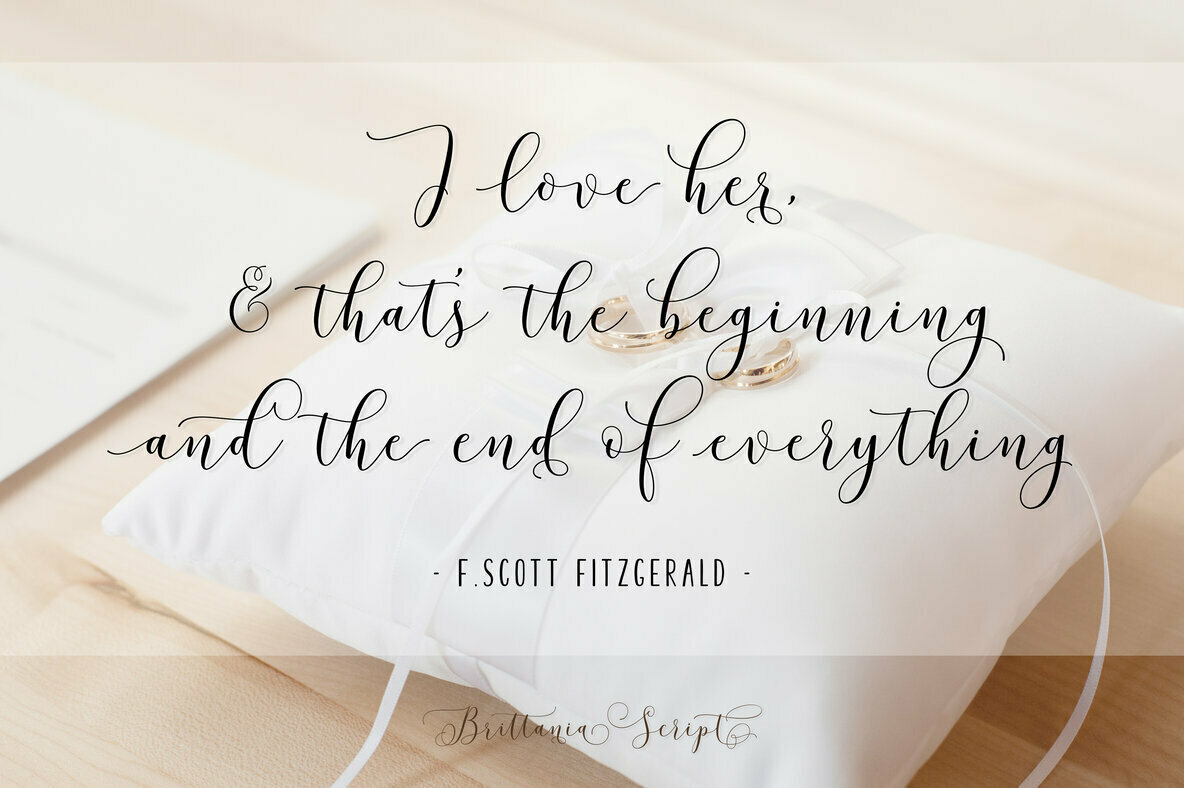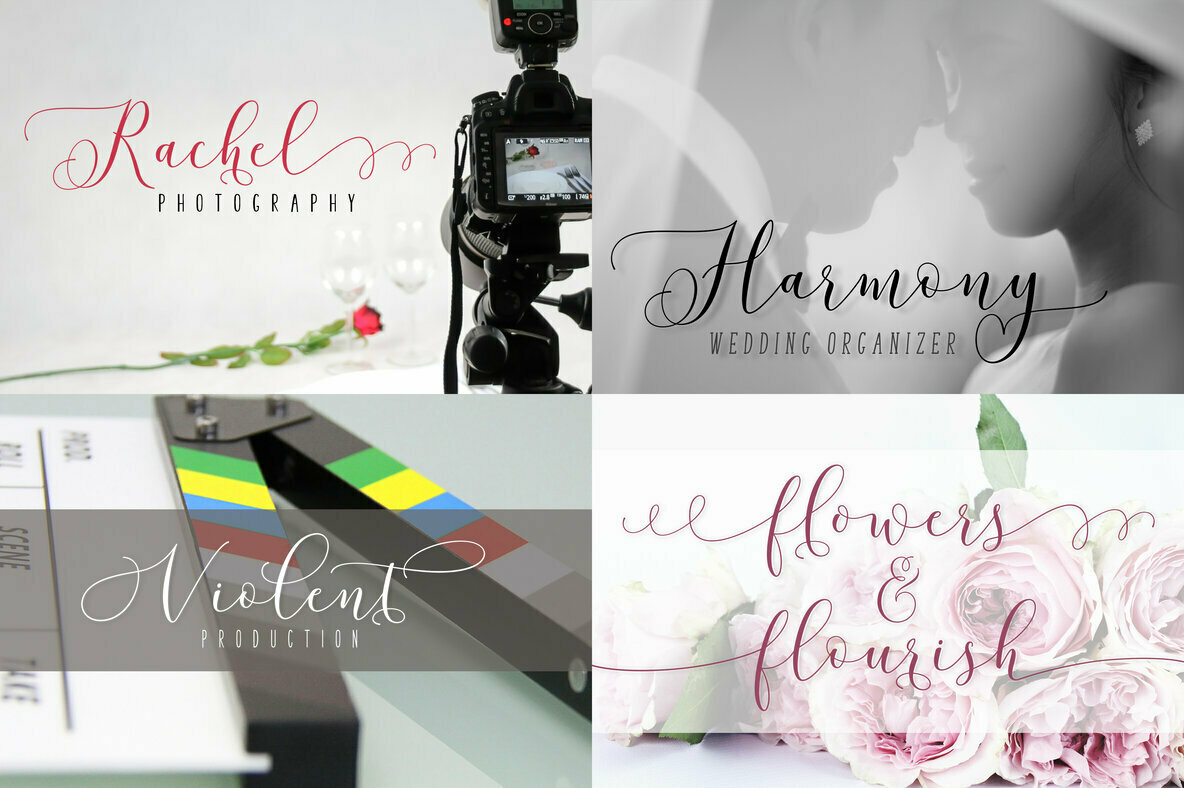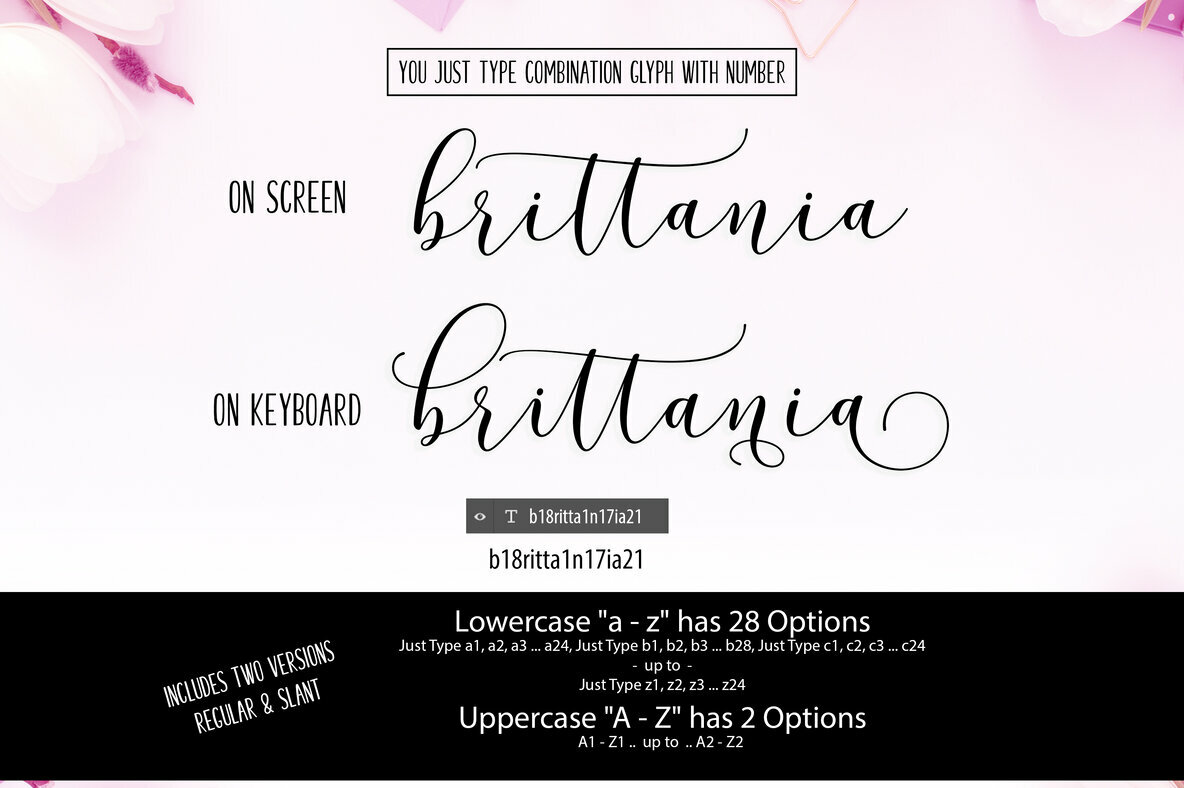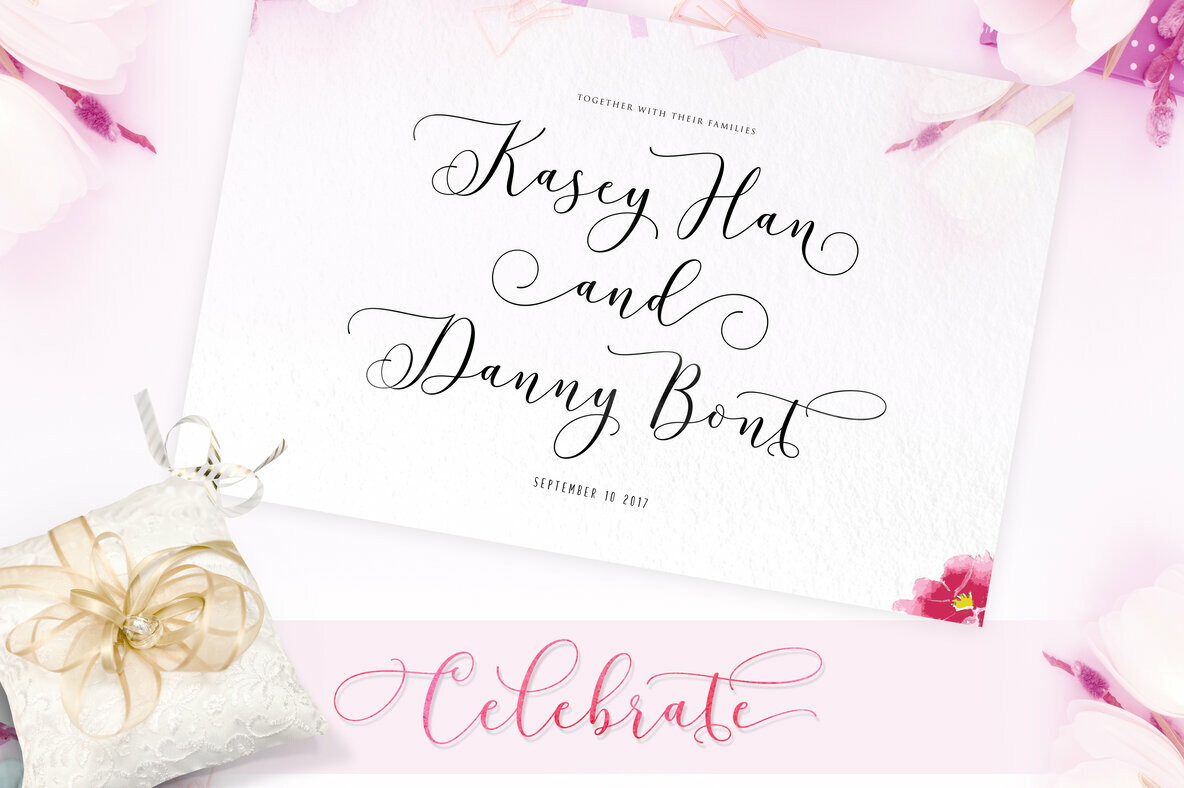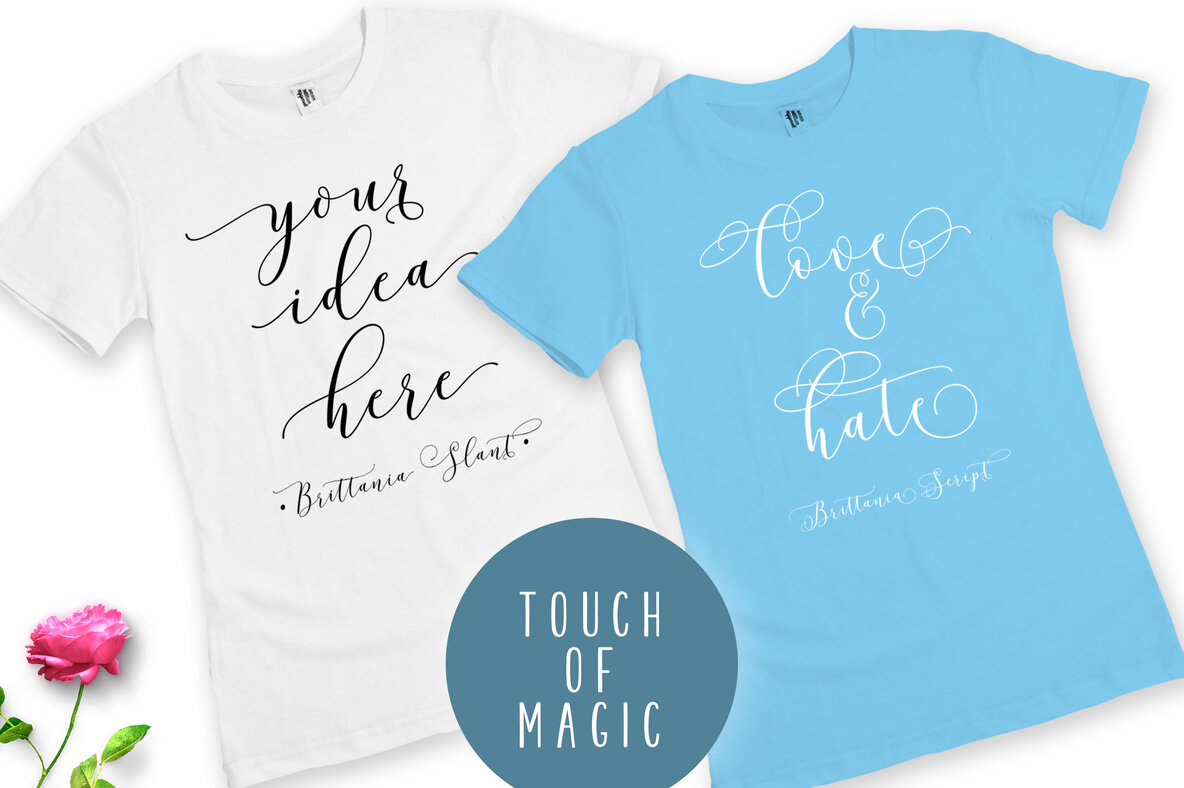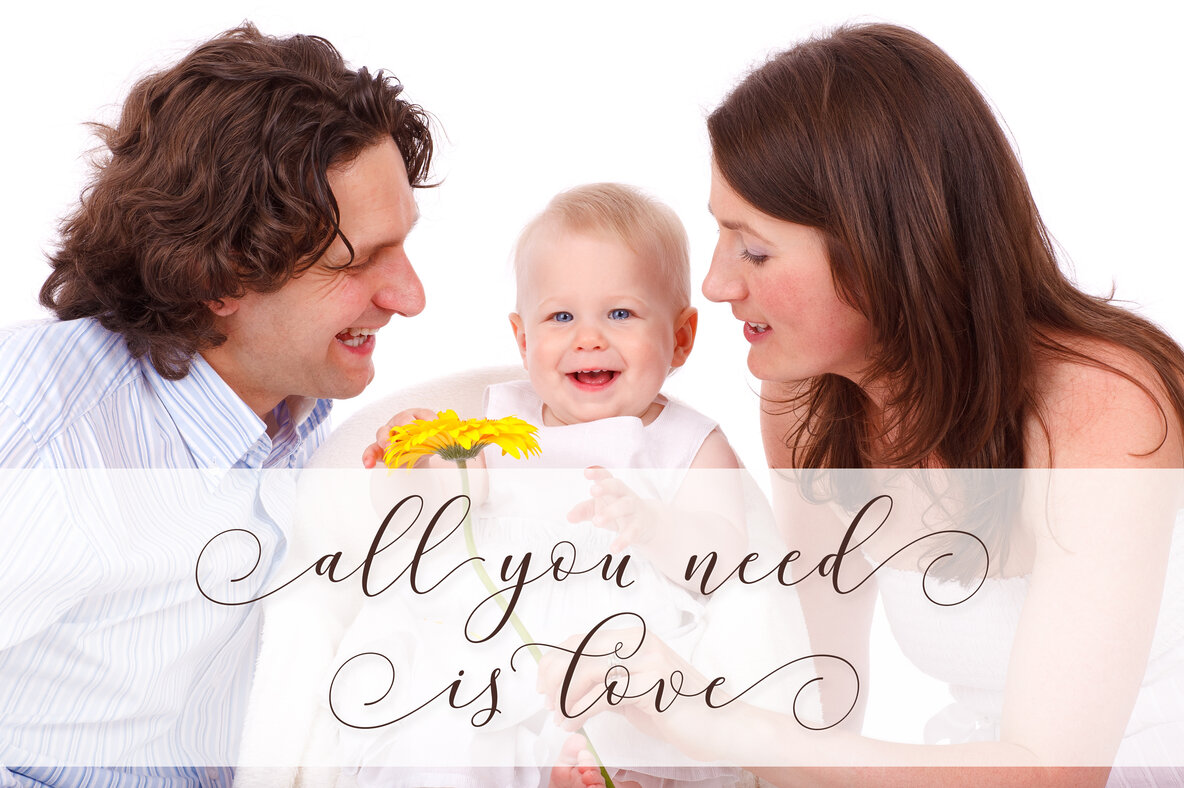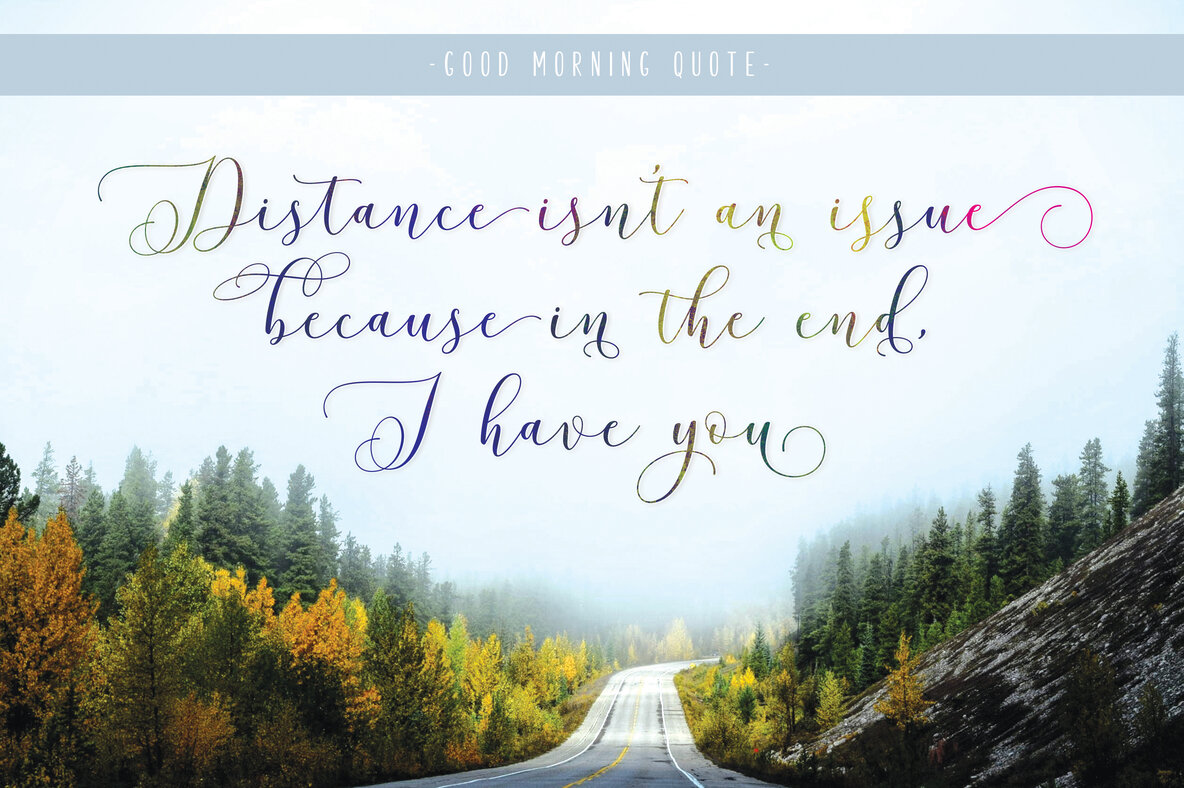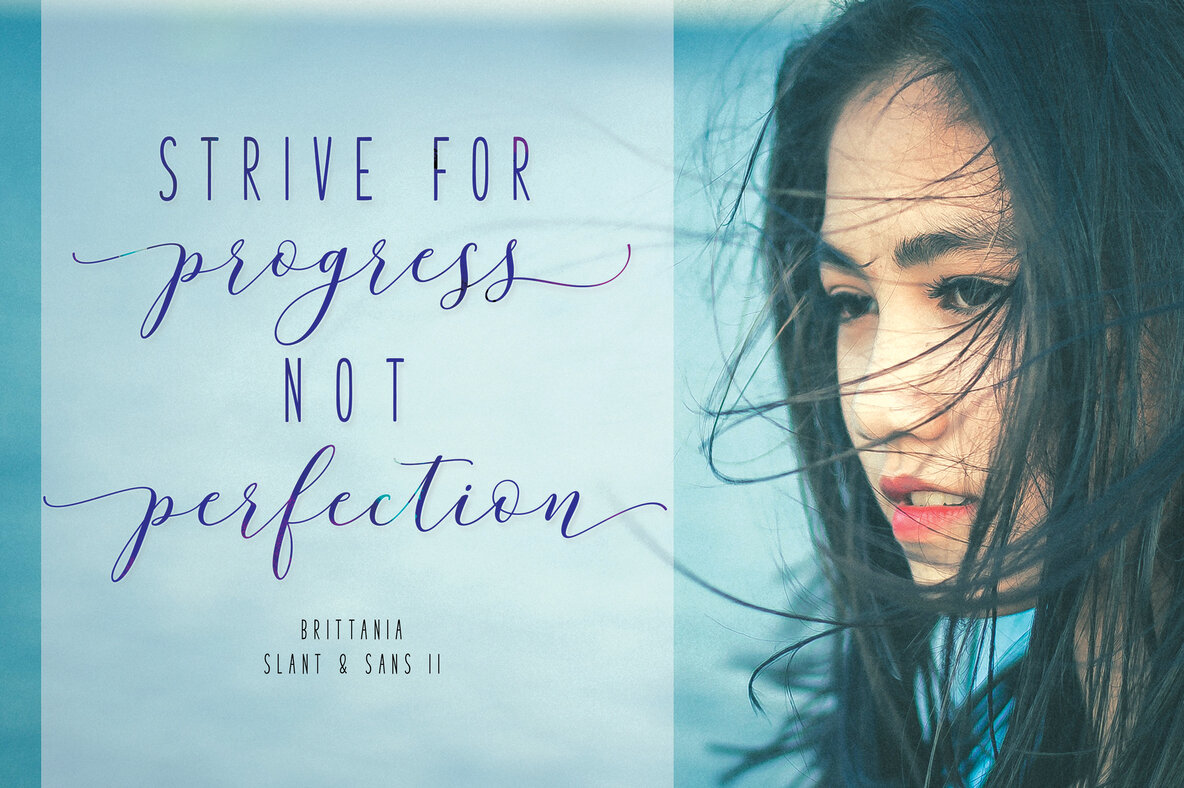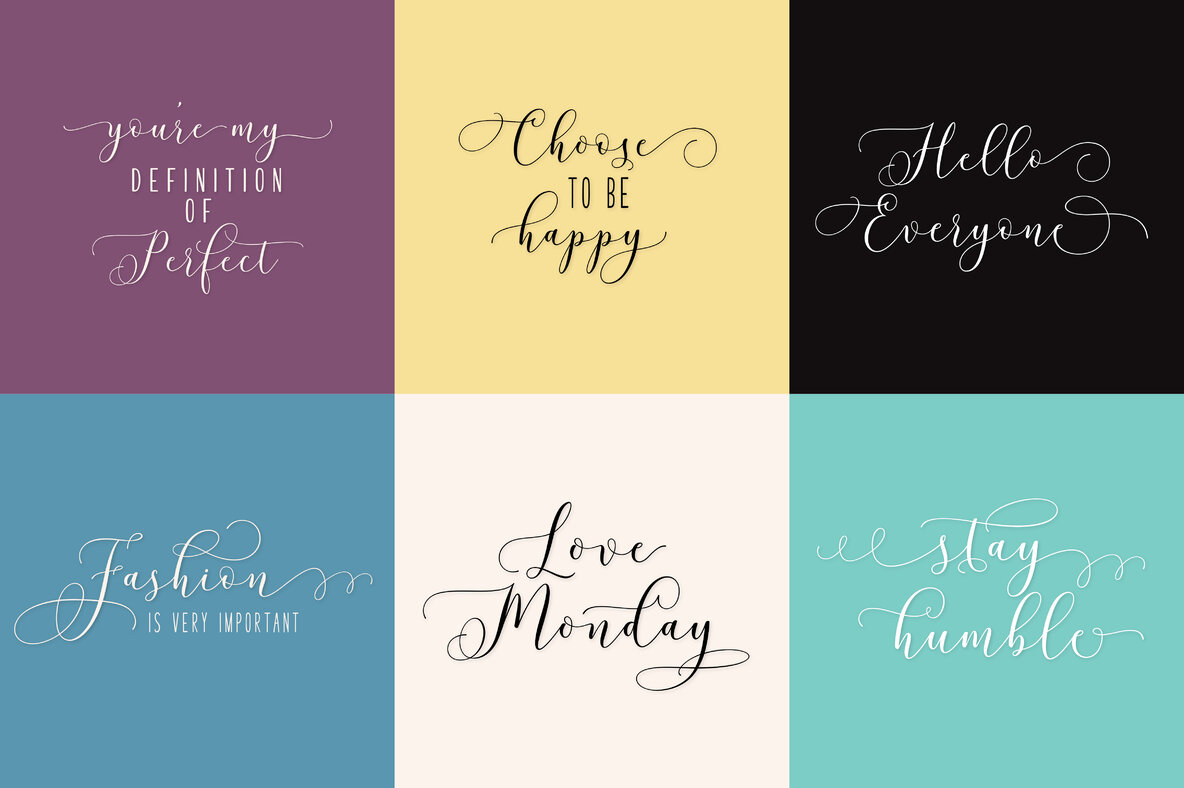
Brittania Script Font
Introducing Brittania Script, a meticulously designed modern script font that brings a touch of elegance to your text. Each letter is crafted with precision, ensuring beauty and clarity in every word. This versatile font seamlessly complements an array of projects, from wedding invitations and branding to fashion designs and blog headers. The font provides effortless access to alternate glyphs and swashes through a simple number code system, such as A1, A2, a1, a2, a3 to z27. If your software does not support OpenType features, you can still access all glyphs through Font Book on Mac or Character Map on Windows.Brittania Script: Modern Elegance in Typography